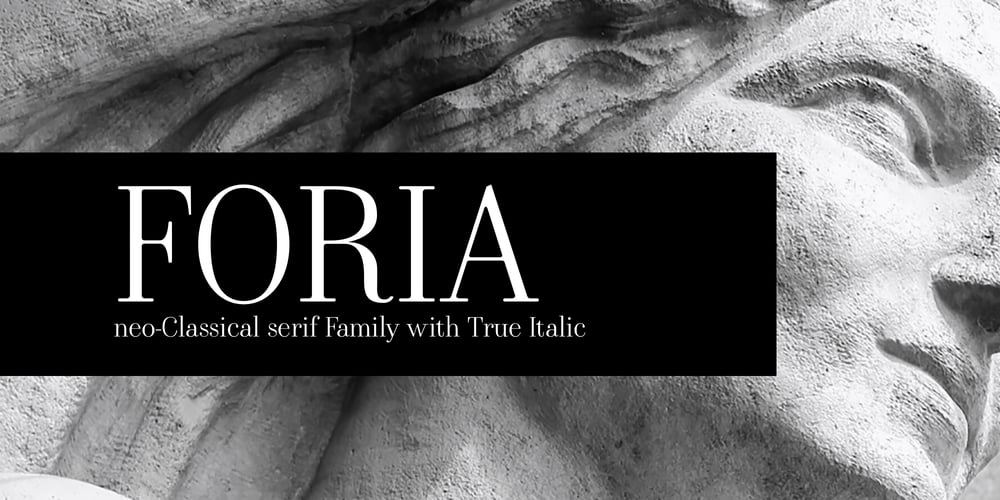
Foria Font Family was designed by Slamet Ardiyanto and published by Chromatype Studio. Foria contains 6 styles and family package options. foria is a Neo-classic serif inspired by a combination of Baskerville and Bodoni with round corners to give a soft impression, looks feminine and classy so it is perfect for fashion, branding, menus, cooking, and female inspiration and is also suitable for neutral typography